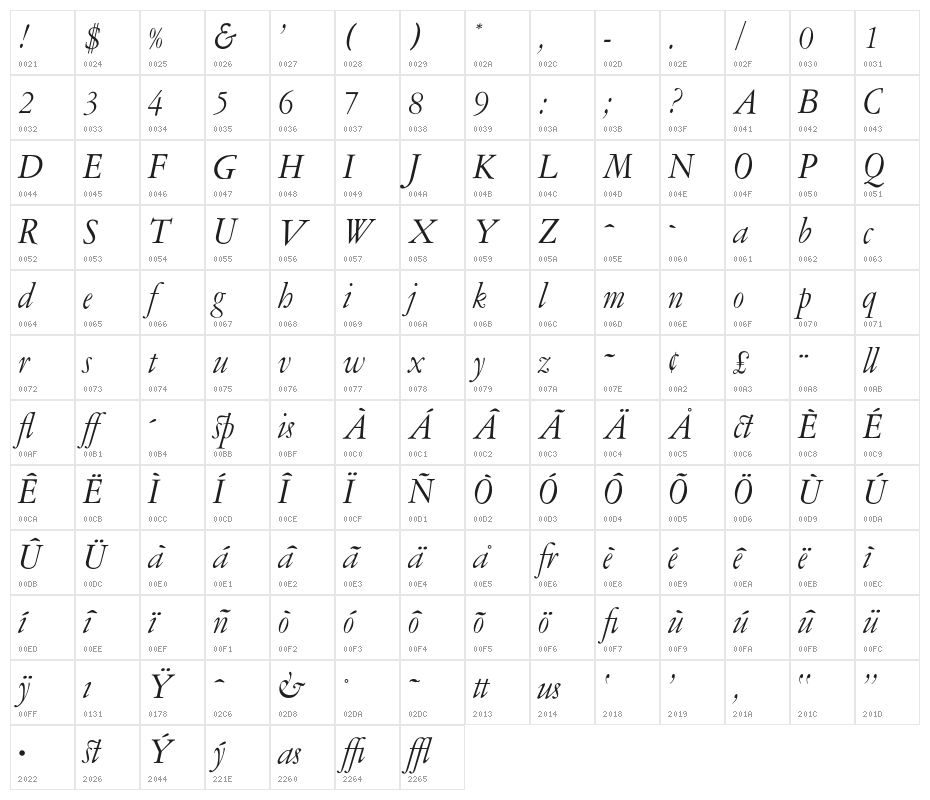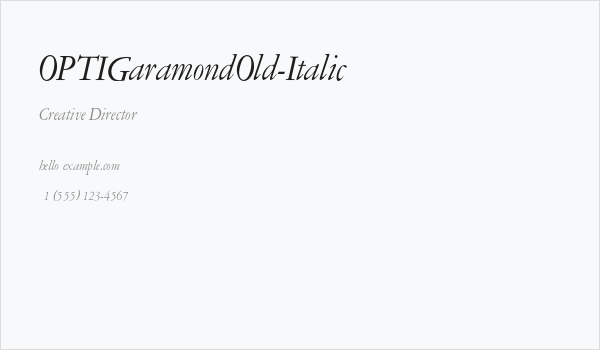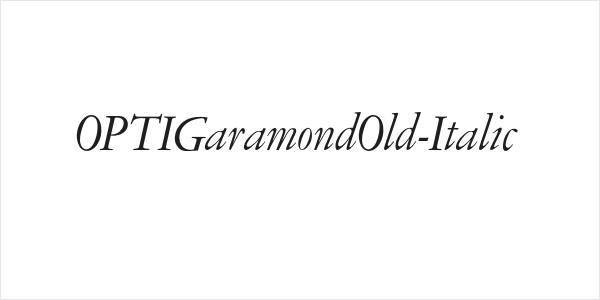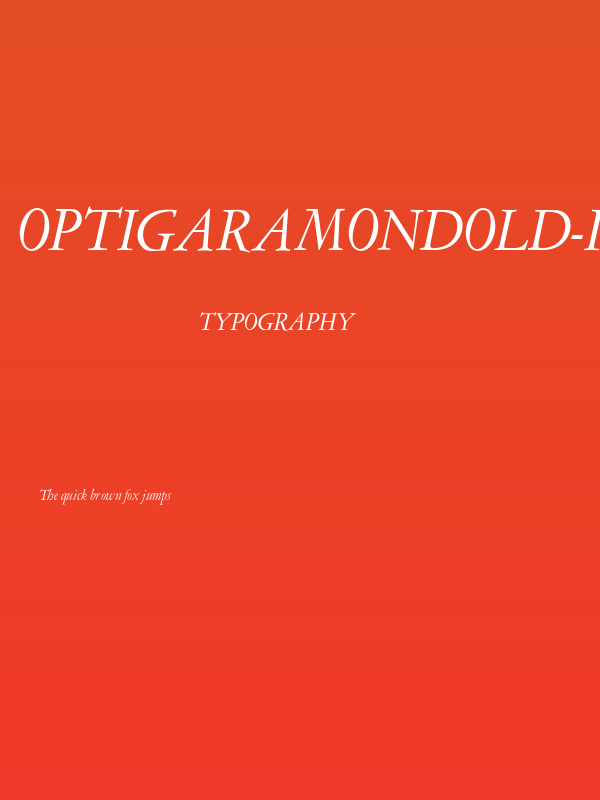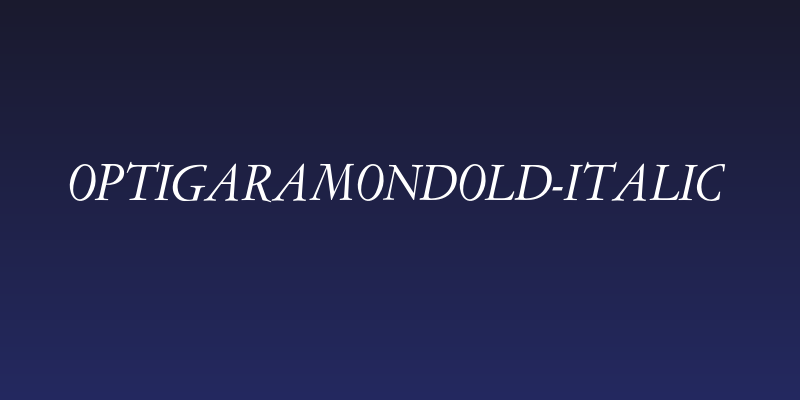
OPTIGaramondOld-Italic Font
OPTIGaramondOld-Italic Description
This font exudes a classic elegance with its refined and sophisticated design. The italicized style adds a graceful flow to the characters, enhancing its timeless appeal. Each letter is crafted with a delicate balance of thin and thick strokes, creating a high contrast that draws the eye. The serifs are subtle yet pronounced, contributing to its traditional aesthetic. The font maintains a consistent slant, providing a sense of movement and dynamism. The numerals and special characters are designed with the same attention to detail, ensuring uniformity across all elements. This font is ideal for projects that require a touch of sophistication and class.
| Proposed Projects | Ideal for formal invitations, elegant branding, book covers, and editorial design. |